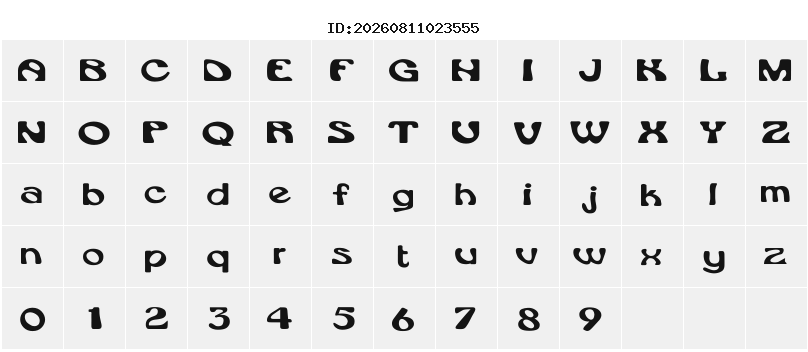
• Font Name: Rsdaytona Wd
• Font ID: Rsdaytona Wd Regular:
• Full Font Name: Rsdaytona Wd
• PostScript Name: RsdaytonaWd
About Rsdaytona Wd.ttf
Rsdaytona Wd.ttf is a modern, elegant sans-serif font designed for ultimate readability and visual harmony. Perfect for branding, headlines, web design, and print materials.